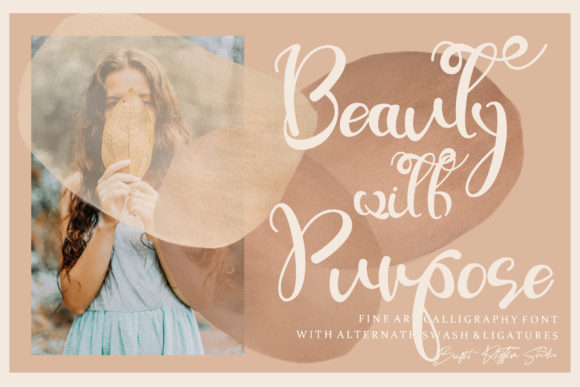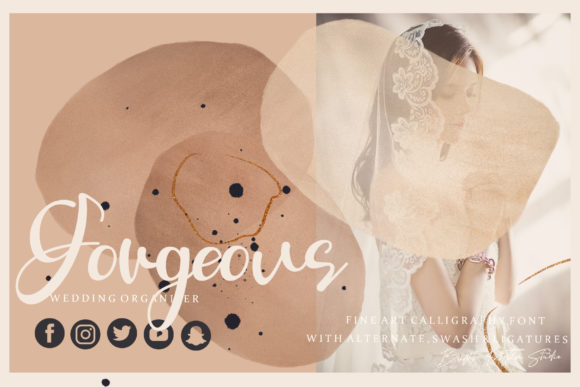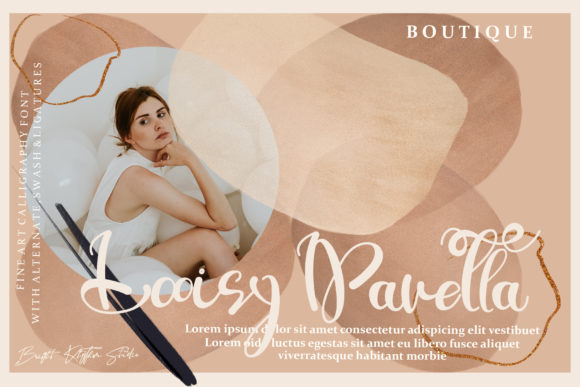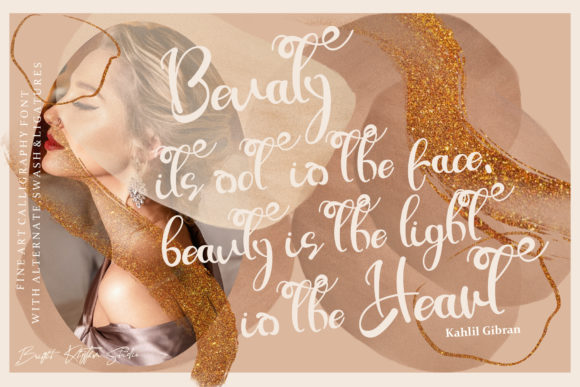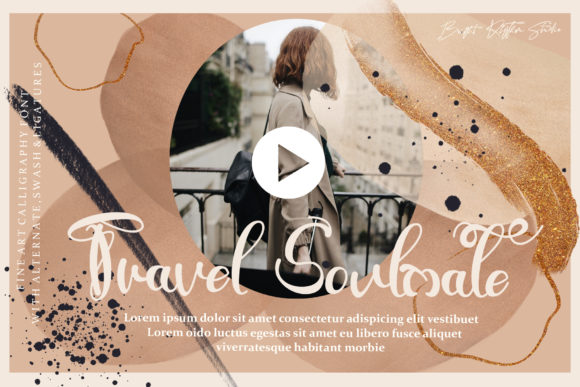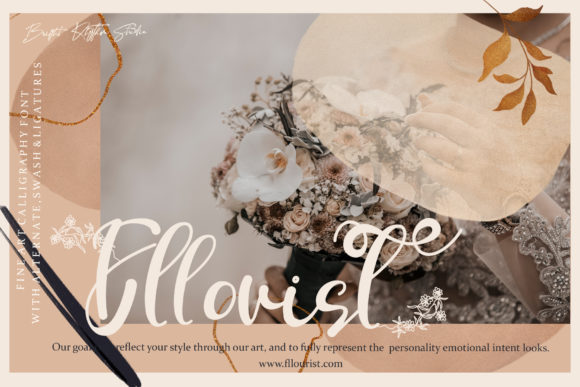
Introducing Agraffito Font: A Smooth Handwritten Font with a Nature Theme
Are you a designer or crafter looking for a beautiful and versatile font to elevate your creative projects? Look no further than Agraffito Font! This stunning handwritten font boasts a nature theme, making it perfect for a wide range of design applications. In this article, we’ll dive into the features and benefits of Agraffito Font, and explore how it can enhance your craft designs.
What is Agraffito Font?
Agraffito Font is a smooth handwritten font that exudes a sense of natural elegance. Its flowing lines and organic feel make it an excellent choice for designers and crafters who want to add a touch of whimsy and charm to their work. The font’s nature theme is evident in its subtle leaf and flower motifs, which add a delicate touch to any design.
Key Features of Agraffito Font
- PUA Encoding: Agraffito Font is PUA (Private Use Area) encoded, which means that you can access all of the glyphs and swashes with ease. This feature allows you to unlock the full potential of the font and experiment with different combinations of letters and symbols.
- Simple and Easy to Use: Despite its elegant appearance, Agraffito Font is surprisingly simple and easy to use. Whether you’re a seasoned designer or a beginner crafter, you’ll find that this font is effortless to work with.
- Versatile: Agraffito Font is incredibly versatile, making it suitable for a wide range of design applications. From crafting and scrapbooking to branding and advertising, this font can be used in various contexts to add a touch of natural beauty.
Benefits of Using Agraffito Font
So, why should you choose Agraffito Font for your design projects? Here are just a few benefits of using this beautiful font:
- Unique and Eye-Catching: Agraffito Font is a unique and eye-catching addition to any design. Its natural theme and flowing lines make it stand out from more traditional fonts, adding a touch of personality to your work.
- Enhances Craft Designs: Agraffito Font is specifically designed to enhance craft designs, making it an excellent choice for crafters and scrapbookers. Whether you’re creating cards, invitations, or other paper crafts, this font will add a beautiful touch to your work.
- Time-Saving: With Agraffito Font, you can save time and effort in your design process. Its PUA encoding and simple design make it easy to use and experiment with, allowing you to focus on the creative aspects of your project.
How to Use Agraffito Font in Your Designs
Using Agraffito Font in your designs is easy! Here are a few tips to get you started:
- Pair with Other Fonts: Agraffito Font looks beautiful when paired with other fonts. Experiment with different combinations to create unique and interesting visual effects.
- Experiment with Swashes and Glyphs: Take advantage of Agraffito Font’s PUA encoding by experimenting with different swashes and glyphs. This will add a touch of personality to your design and make it stand out.
- Use in Digital and Print Designs: Agraffito Font is suitable for both digital and print designs. Use it in your website designs, social media graphics, or print materials like brochures and flyers.
In conclusion, Agraffito Font is a beautiful and versatile handwritten font that is perfect for designers and crafters. Its natural theme, smooth lines, and PUA encoding make it an excellent choice for a wide range of design applications. Whether you’re creating craft designs, branding materials, or digital graphics, Agraffito Font is sure to add a touch of elegance and whimsy to your work. So why wait? Download Agraffito Font today and start creating stunning designs that showcase your creativity!